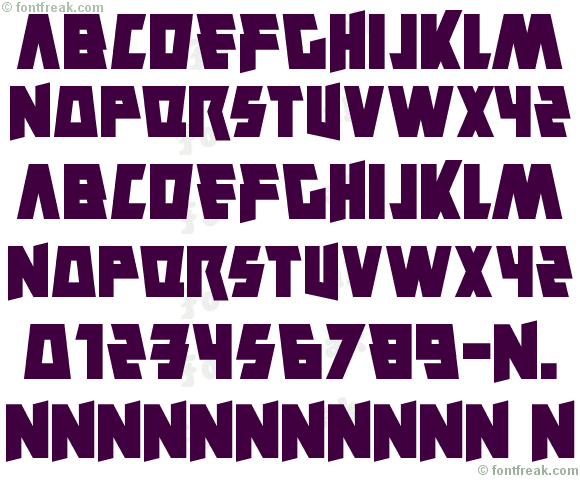
Savantism
About Savantism
Savantism is a striking sans-serif typeface designed by Andrew McCluskey in 2013. This font exhibits a modern aesthetic with a clean, minimalistic approach, making it versatile for various design applications. The stroke weight is consistently bold, providing a strong presence that captures attention while maintaining readability. The contrast between the thick and thin strokes is subtle, allowing for a smooth visual flow. Spacing between letters is thoughtfully adjusted, ensuring clarity and ease of reading, which is essential for effective communication in design.
This font is ideal for a range of specific use cases. It shines in branding efforts, making it perfect for logos and company identities that aim for a contemporary look. Additionally, Savantism works beautifully on restaurant menus, offering a modern feel that enhances the dining experience. Its bold nature makes it suitable for headlines in magazines, where grabbing the reader's attention is paramount. Event posters and flyers also benefit from the font's strong visual impact, making it a great choice for promoting concerts or community events. Finally, content creators will find Savantism an excellent option for online blogs and social media graphics, where it can elevate the aesthetic of their visuals.